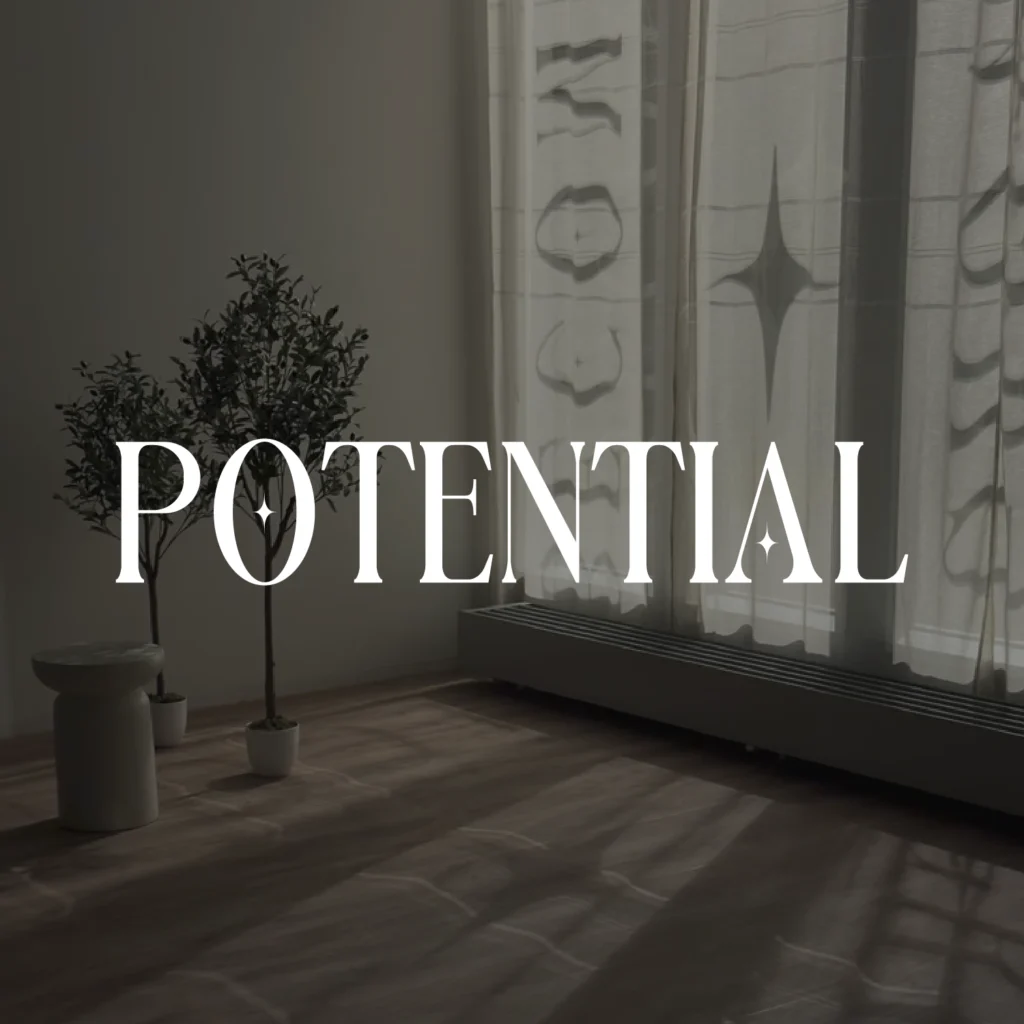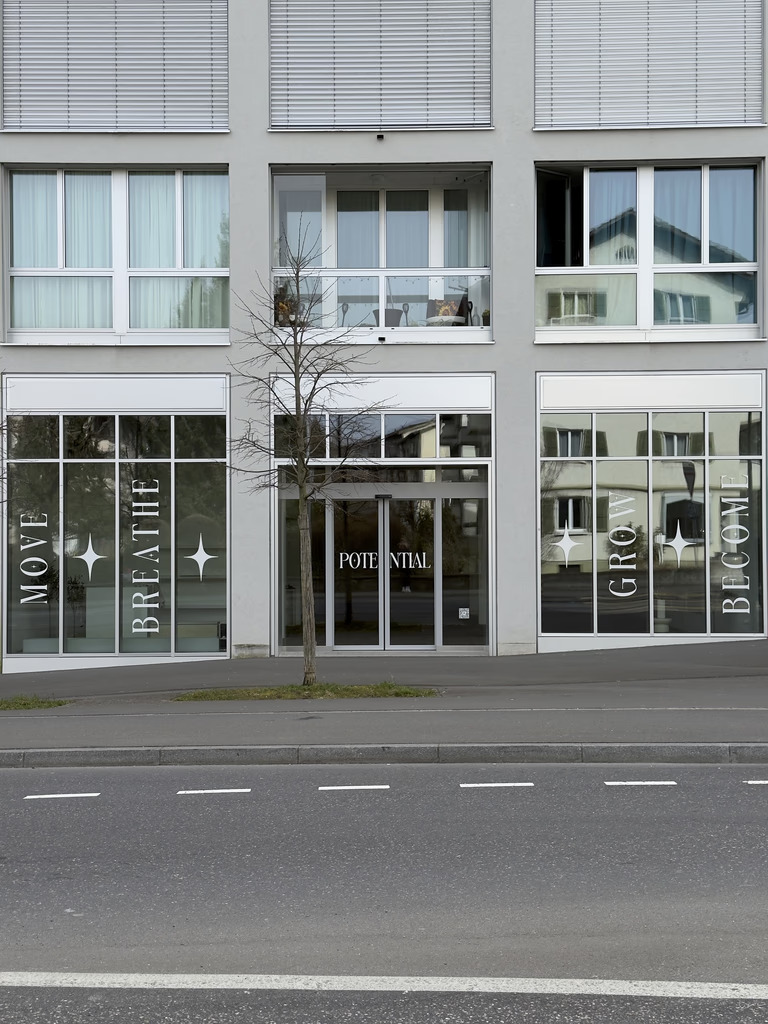
FONT IN USED: ANOVA
Potential Pilates offers a modern approach to movement—creating a space that feels both welcoming and intentional. Built around reformer and mat sessions, the studio emphasizes balance, strength, and a mindful connection between body and motion, inviting people of all levels to engage with confidence.
Set in Anova, the visual identity reflects a clean and contemporary tone with a subtle sense of warmth—supporting wellness-focused content while maintaining clarity across digital platforms.